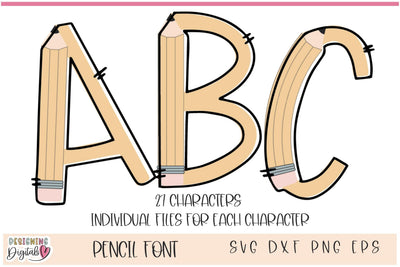
Pencil Doodle Letters, Pencil SVG Font, Alphabet SVG, Doodle Font
Looking for a fun and playful font that's perfect for your next crafting project? Look no further than our Pencil SVG Font! This Doodle Font SVG is filled with charming Pencil Doodle Letters that are sure to add a touch of whimsy to any design.
Whether you're a teacher looking to create some unique classroom decor or a DIY enthusiast who loves to experiment with different fonts, this Teacher SVG is a must-have addition to your crafting arsenal. With its easy-to-use SVG format, you'll be able to quickly and easily incorporate this font into all of your favorite design programs.
Capitol Letters A-Z, Numbers 0-9, Exclamation Point!